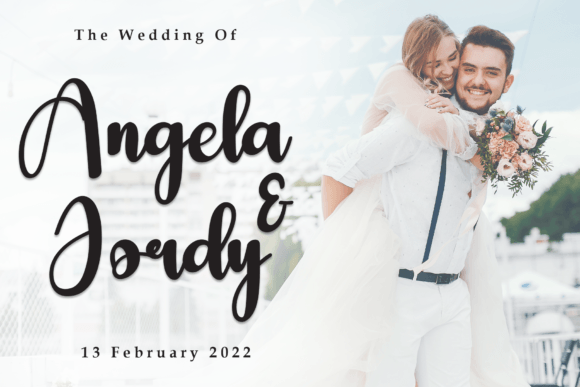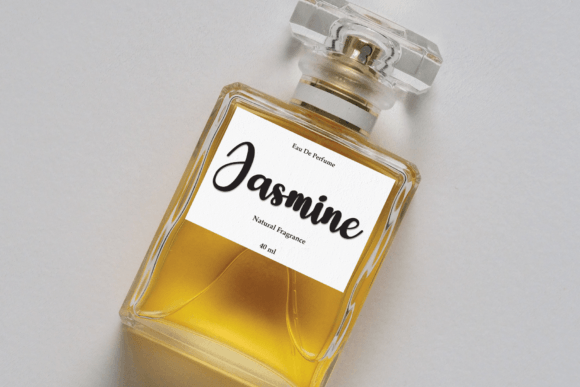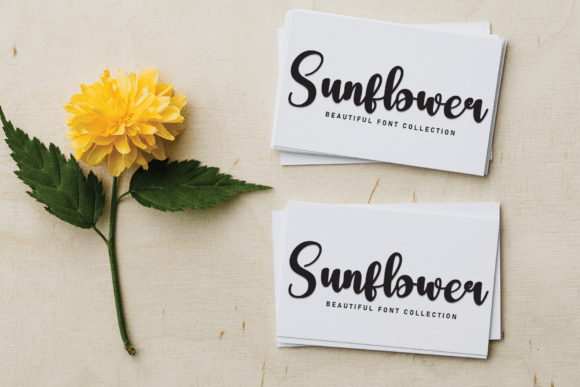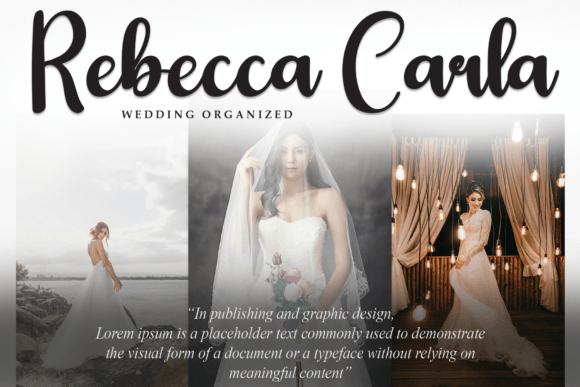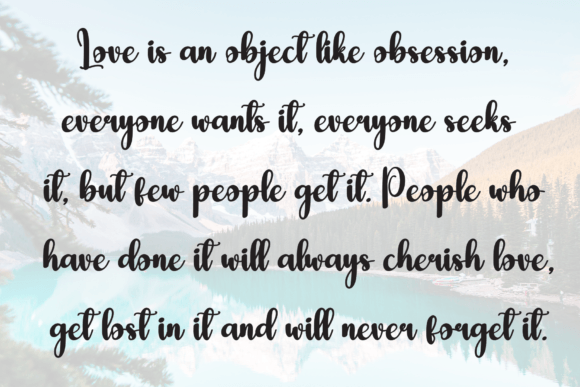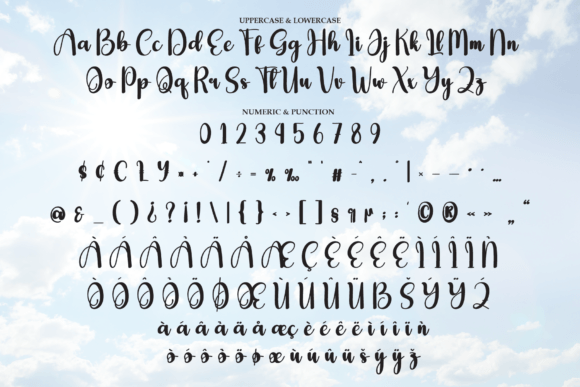
The Quest for the Perfect Font: How Bright Font Stole My Heart
I’ll never forget the time I was working on a wedding invitation project, and my client asked for a font that was “fun, yet elegant.” I scoured the internet, tried out dozens of fonts, but nothing seemed quite right. That was until I stumbled upon Bright Font. ✨ This sweet and friendly handwritten display font has been a game-changer for my designs, and I’m excited to share my love for it with you.
An Honest Review of Bright Font
- ✨ Cute and Fun: Bright Font is perfect for adding a playful touch to any design. Its handwritten charm makes it ideal for wedding invitations, cards, and other celebratory materials.
- ✅ Elegant yet Approachable: This font strikes the perfect balance between sophistication and friendliness. It’s perfect for designs that need a bit of whimsy without looking too casual.
- 💕 Versatile: Bright Font can be used for a wide range of projects, from digital designs to print materials.
While Bright Font is an amazing font, it’s not perfect. Here are a few things to keep in mind:
- 🤔 Limited use in body text: Due to its playful nature, Bright Font might not be the best choice for long blocks of body text. It’s better suited for headings, titles, and short paragraphs.
- ⚠️ Glyph limitations: While Bright Font has a range of glyphs and OpenType features, it might not have every special character or symbol you need.
The Story Behind Bright Font
Bright Font was designed with love and care by a talented type designer who wanted to create a font that would bring joy and happiness to designers and readers alike. The designer’s inspiration came from the beauty of handwritten letters and the need for a font that would be both fun and elegant.
Q: What is Bright Font?
A: Bright Font is a sweet and friendly handwritten display font perfect for designs that need a fun and playful touch.
Q: Is Bright Font suitable for body text?
A: While Bright Font is a beautiful font, it’s better suited for headings, titles, and short paragraphs. It’s not ideal for long blocks of body text.
Q: Does Bright Font have OpenType features?
A: Yes, Bright Font has a range of OpenType features, including ligatures and stylistic alternates, that can add more personality to your text.